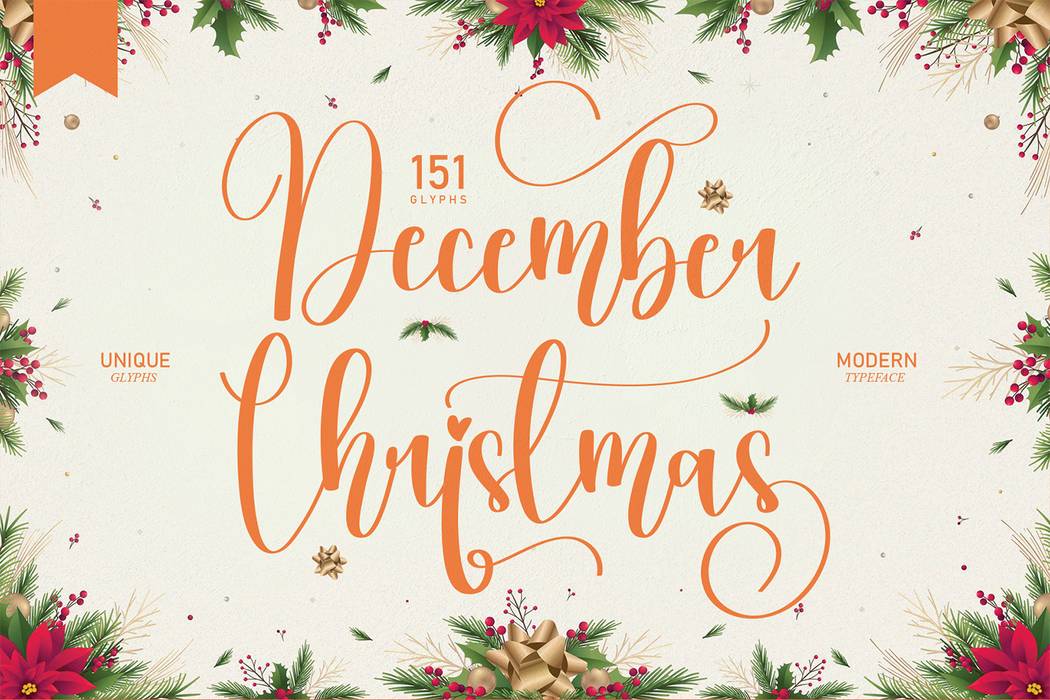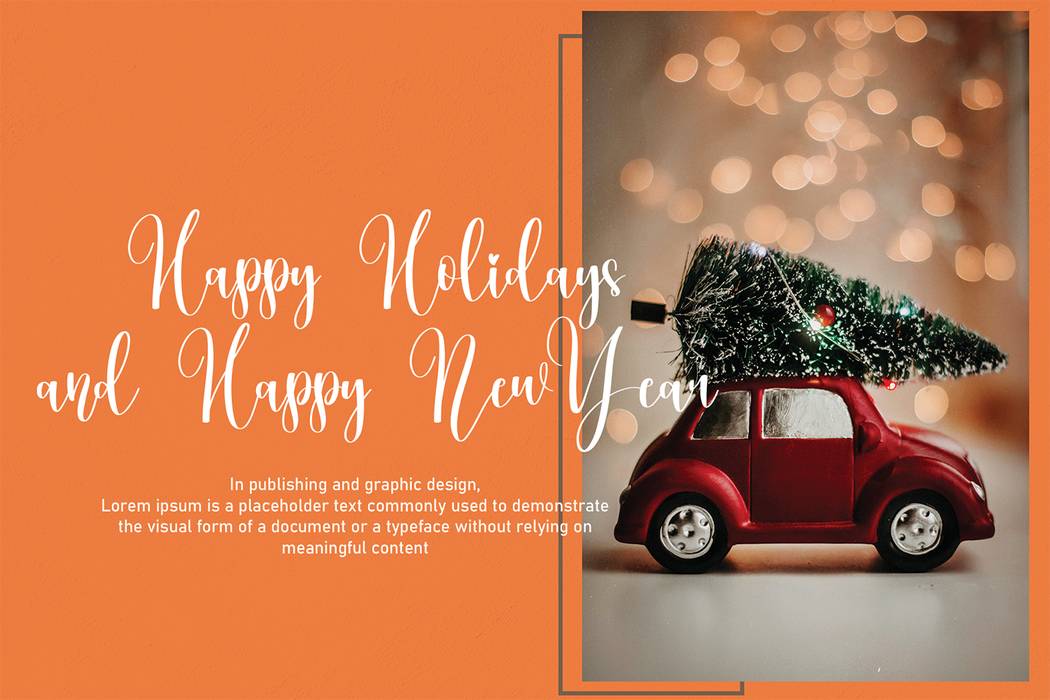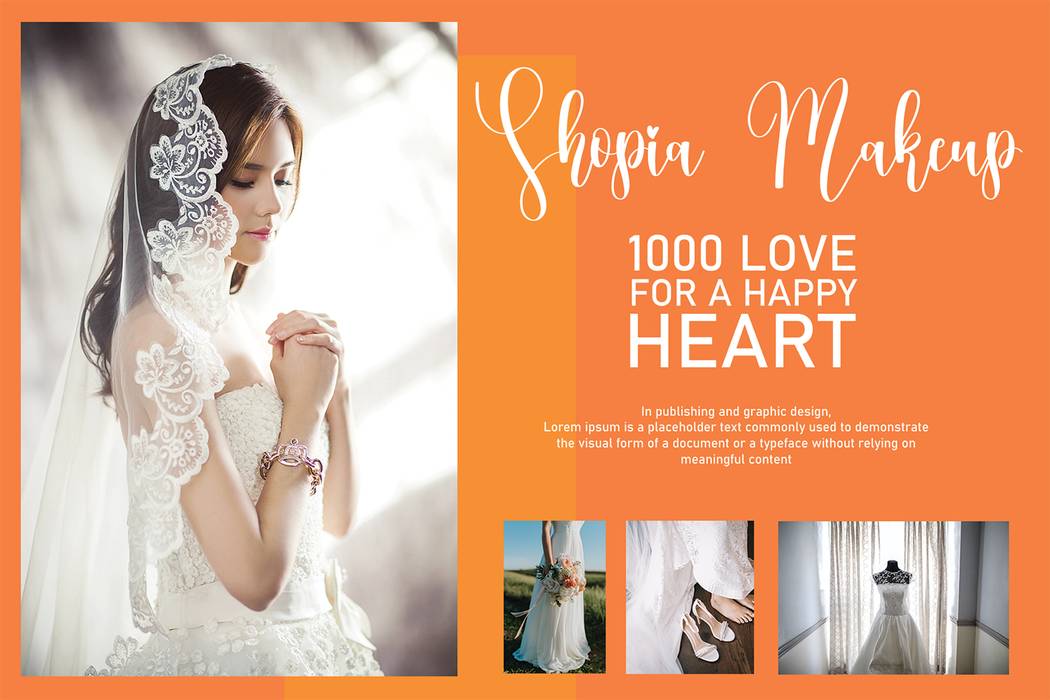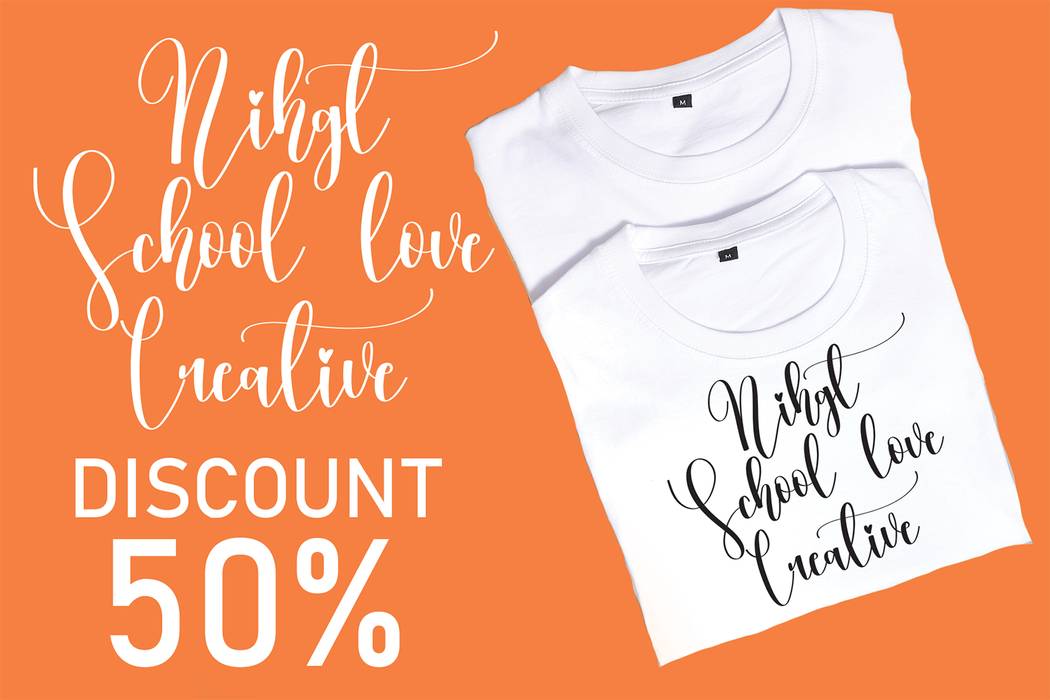
December Christmas Font is a delicate, flowing script with elegant, handwritten letterforms that feature graceful swirls and a light, whimsical touch. Its tall, narrow characters with varied stroke thicknesses and charming flourishes make it perfect for festive, romantic, or feminine designs, ideal for holiday cards, invitations, and decorative branding that calls for a stylish and joyful feel.
December Christmas Font